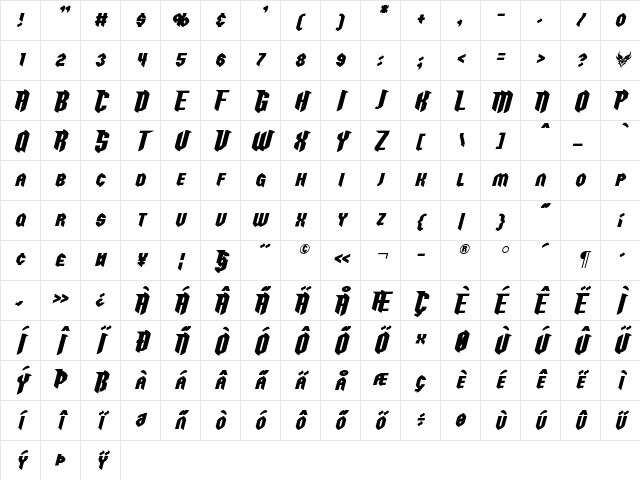
Razorclaw Italic
Foundry: Pixel Sagas
Designer: Neale Davidson
Design Context for Razorclaw
Razorclaw is a composed and adaptable typeface that performs quietly and consistently across a wide range of design contexts. The slanted form adds forward momentum and visual energy.
Pro Tip: Use Razorclaw for emphasis, pull quotes, and subheadings where its slanted energy can add rhythm to the layout.